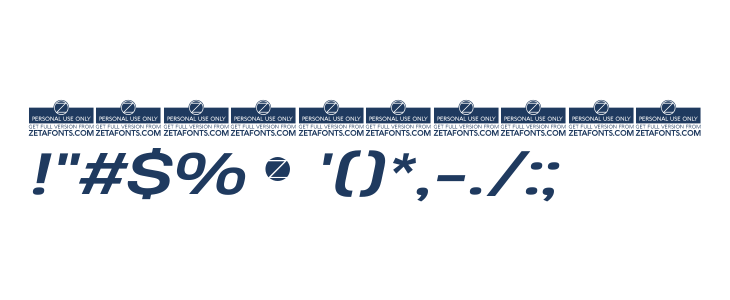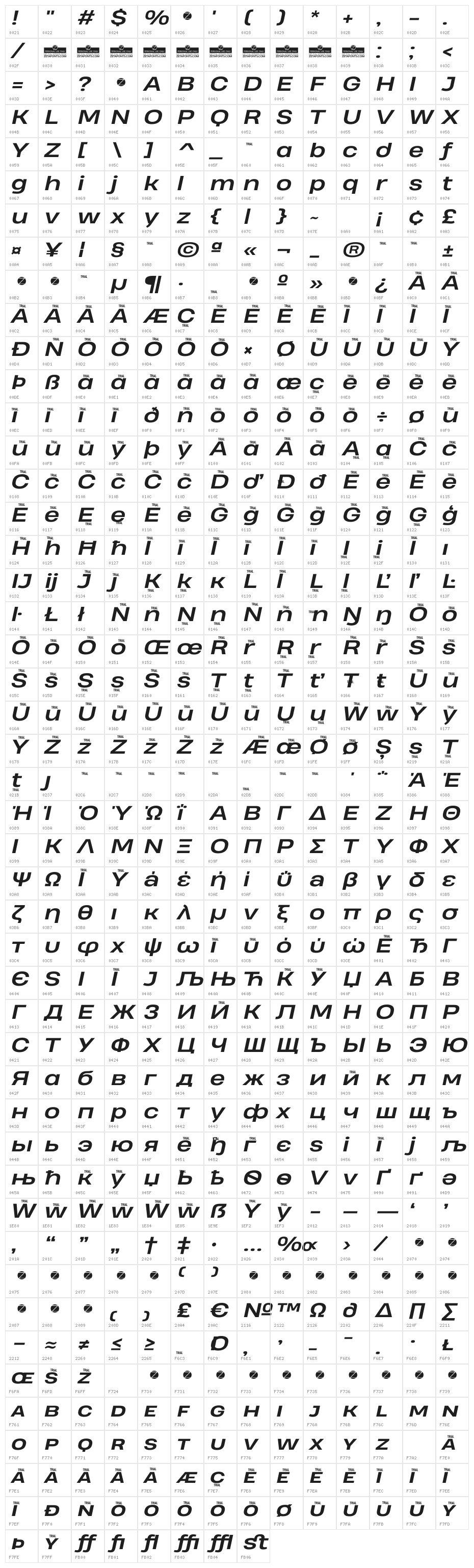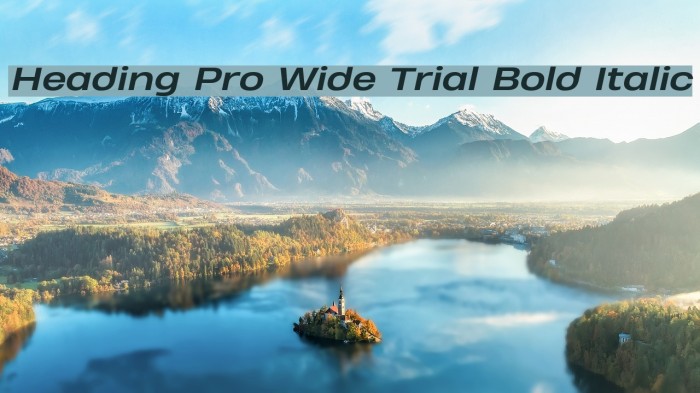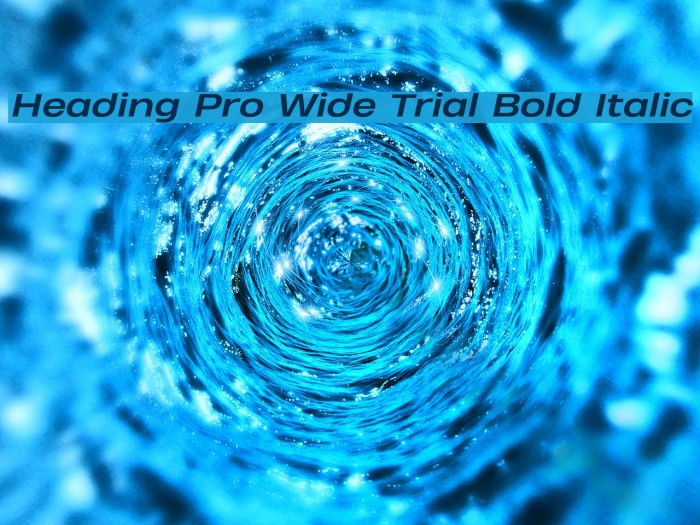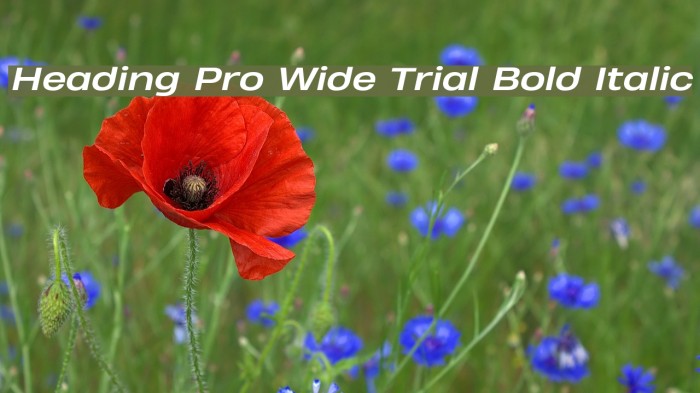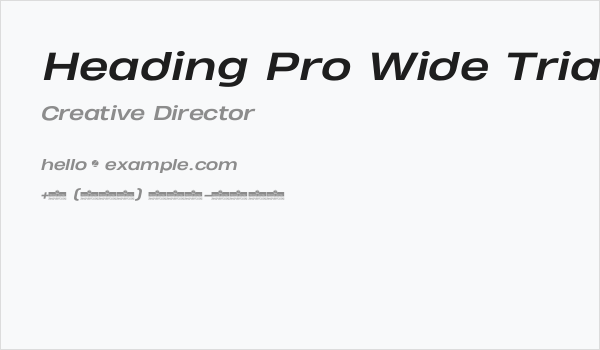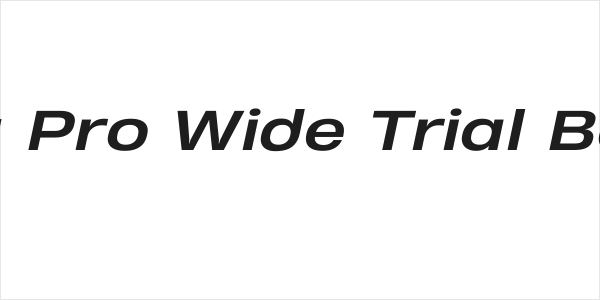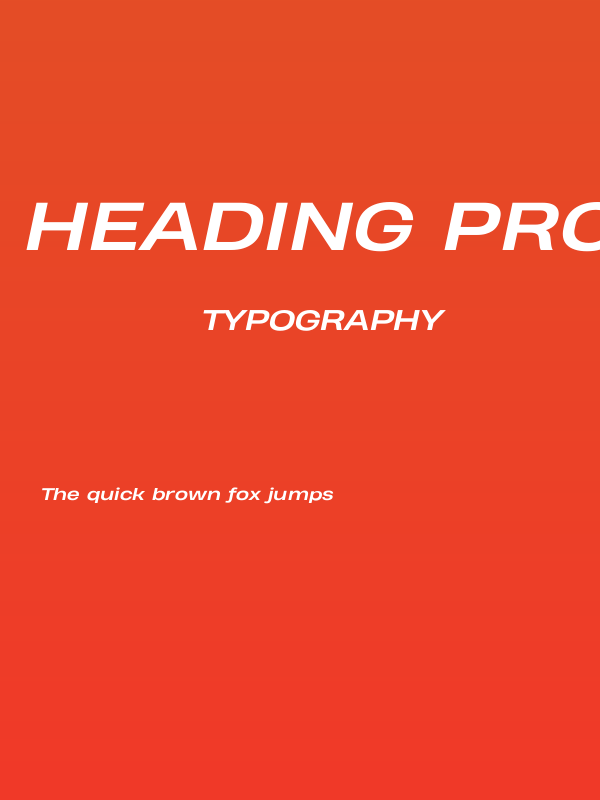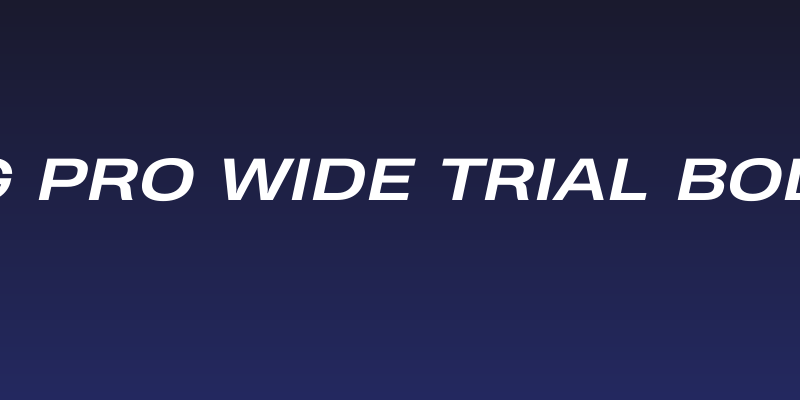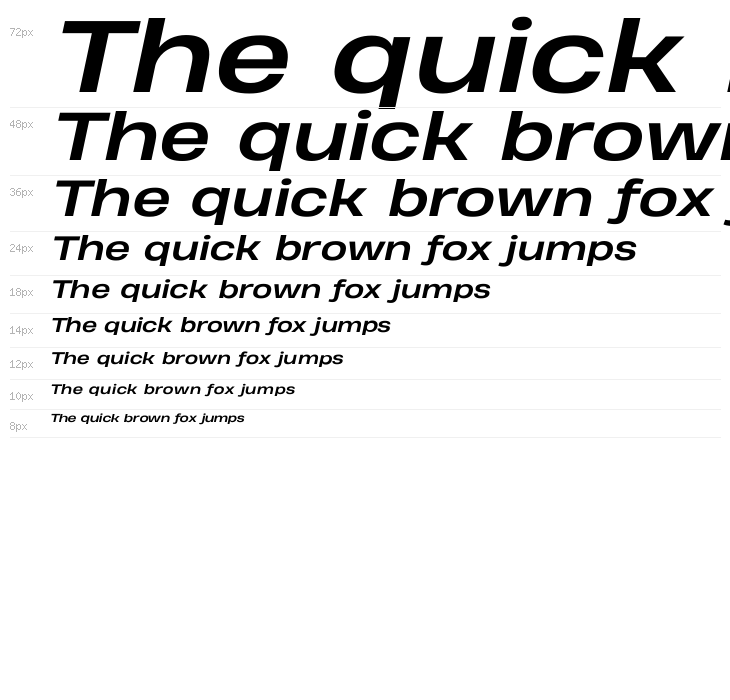
Heading Pro Wide Trial Bold Italic Font
Heading Pro Wide Trial Bold Italic Description
This font features a bold and italic style with a modern and sleek appearance. The characters are wide and have a strong presence, making them suitable for impactful headlines and titles. The uppercase and lowercase letters are well-proportioned, with a slight slant that adds dynamism to the text. The numerals and special characters maintain the same bold and italic characteristics, ensuring consistency across all elements. The font's design is clean and contemporary, making it versatile for various design projects.
| Proposed Projects | Ideal for headlines, branding, advertising, and editorial design. |